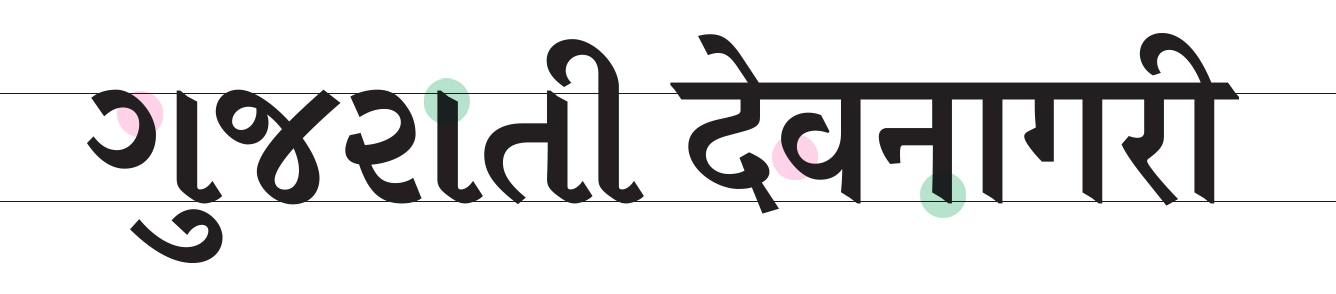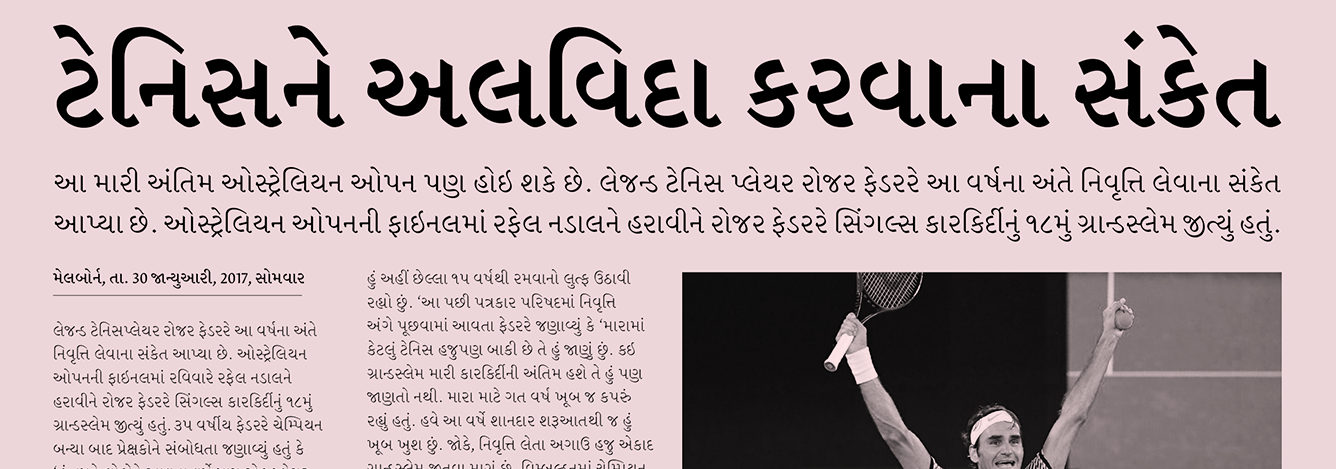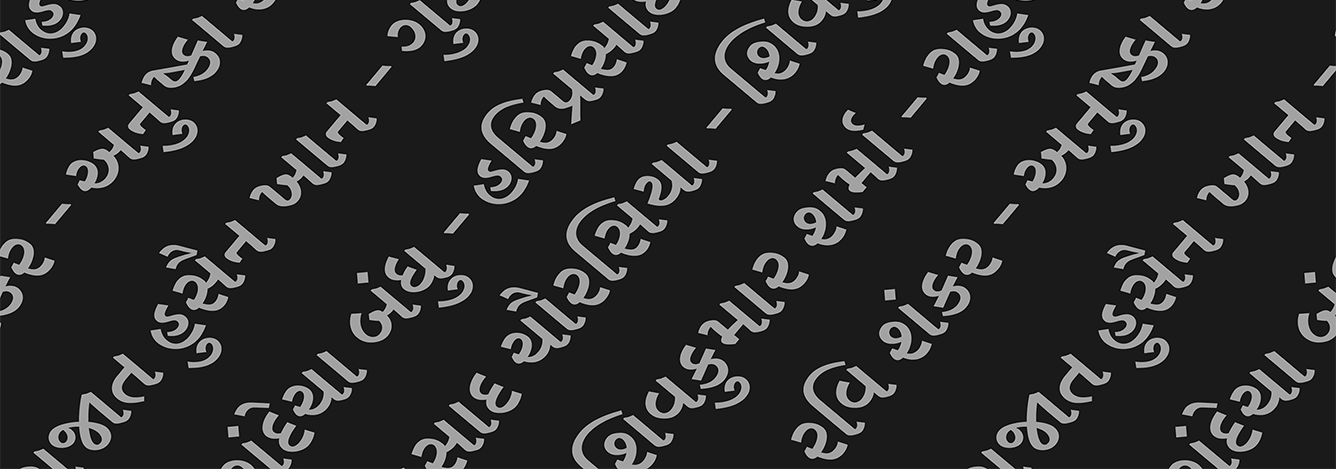
Take a moment to think about the way most Gujarati text you read looks. Just like most other North Indian scripts – and Urdu, too – Gujarati body text is traditionally set with type whose letters are very similar to older manuscript styles. Their design language is based on tried and true calligraphic models from the past. However, this doesn’t mean that a contemporary Gujarati text typeface has to look too old-fashioned; it is possible to draw letterforms that look familiar and new, all at the same time. Some of the most exciting typefaces designed around the work rely on formal characteristics that originated long ago, when scribes, scholars, and salespeople write with written with broad pens.
ITF Gujarati is the newest Gujarati typeface from the Indian Type Foundry, which itself is based in Gujarat. Strictly speaking, ITF Gujarati is a companion typeface for our popular ITF Devanagari fonts. Just like ITF Devanagari, ITF Gujarati is a a workhorse design whose characters are rooted in established Gujarati calligraphic traditions. ITF Gujarati is an ideal typeface for magazines or novels and other books. However, it can hold up to strict demands of the newspaper printing as well. Satya Rajpurohit designed ITF Devanagari in 2010–11. ITF Gujarati was designed in-house at ITF in Ahmedabad by Parimal Parmar.
Thanks to its visible stroke-contrast, ITF Gujarati is a good match for a multitude of oldstyle serif typefaces that have designed for the Latin script. ITF Gujarati includes five styles, ranging in weight from Light to Bold. As the weights get heavier, their levels of contrast increase significantly, too. While the degree of contrast in the lighter weights is toned down a bit – in order to allow the thinner strokes to remain robust enough – even ITF Gujarati Light features unmistakable diagonal stress. While all of the family’s weights have been optimised to maximise their legibility in small sizes, the Regular and the Medium are the most suited members of the family for body-sized text. The other weights, especially, will be most useful in headlines. The ITF Gujarati’s fonts offer similar colour to those from the ITF Devanagari family when set in text, so the two families may be used side by side.
With 603 glyphs in each of its font, ITF Gujarati’s character set includes all of the necessary conjuncts and ligatures needed for writing the Gujarati language. The character sets also include over four dozen alternate-length i-matras in them, which help ensure proper text-shaping for all Gujarati consonantal clusters (this makes text set in ITF Gujarati look just great). While the ITF Gujarati fonts don’t contain any alphabetic characters from the Latin script, they do include ‘western’ numerals and punctuation marks.